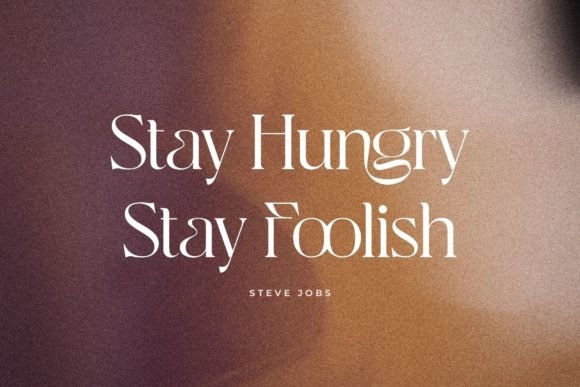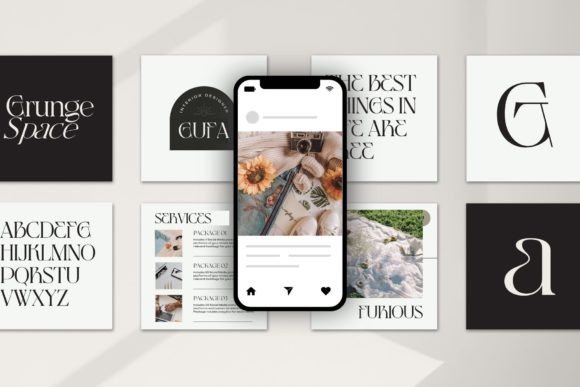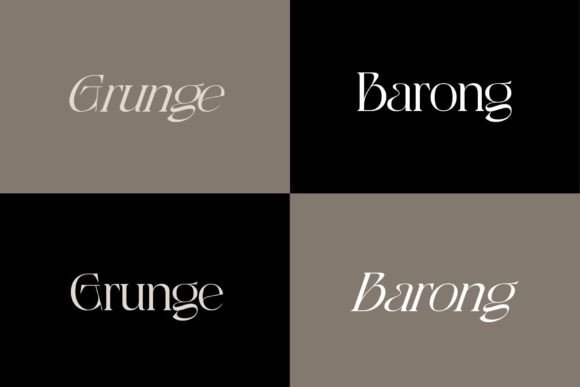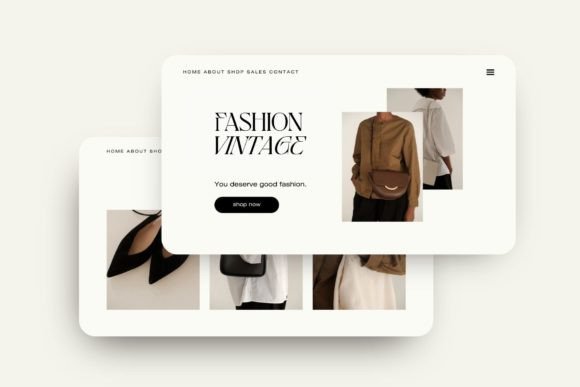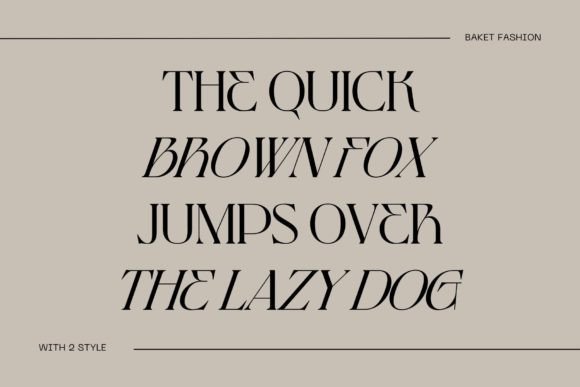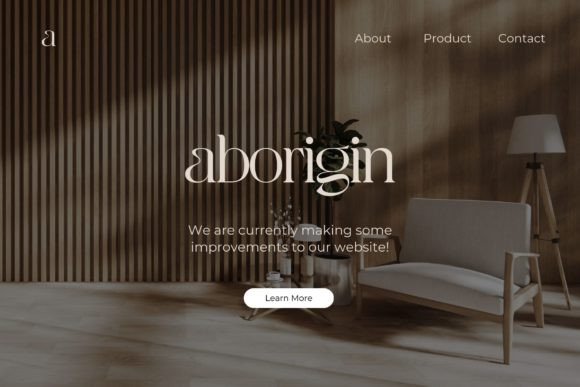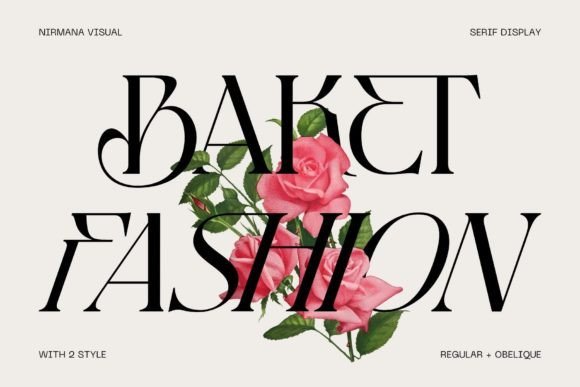
Where Elegance Meets Typography
Have you ever stared at a beautiful, hand-drawn font and wished you could capture its essence in your design? For many creatives, that ‘aha’ moment is the spark that sets their imagination ablaze. And for us, it was the inspiration behind the exquisite Baket Fashion Font.
Designed to bring sophistication and refinement to your designs, this elegant font is a masterclass in classic typography and calligraphy. With its delicate curves and balanced proportions, it’s the perfect choice for luxury branding, high-end invitations, editorial design, and formal occasions. Whether you’re a seasoned designer or just starting out, the Baket Fashion Font is an invaluable addition to your toolkit, offering a level of sophistication and elegance that’s hard to find elsewhere.
Baket Fashion Font Key Features
• Size: Supports 6 font sizes, including petite, normal, and display sizes
• Resolution: High-resolution fonts with 300 DPI or higher for crisp and clear display
• Unique Characteristics: Unique, hand-drawn design with a mix of modern and vintage elements, perfect for fashion and lifestyle brands
• Font Styles: Includes regular, bold, italic, and bold italic font styles for versatility
• Language Support: Supports a wide range of languages, including Latin, Cyrillic, and Greek alphabets
Baket Fashion Font Review
I’ve had the chance to work with the Baket Fashion Font, and here’s my honest take on it.
The Baket Fashion Font has a unique and stylish aesthetic that can add a touch of sophistication to any design project. The font is perfect for fashion and lifestyle brands, as it conveys a sense of luxury and high-end quality.
• It’s highly customizable, allowing you to adjust the font weight, size, and color to suit your design needs.
• The font has a wide range of languages supported, making it suitable for global brands.
• It’s highly legible, even at smaller font sizes, making it perfect for body text.
While the Baket Fashion Font has its strengths, there are some limitations to consider.
• The font may not be suitable for designs that require a more minimalist or modern look.
• It may be too ornate for certain design projects, such as technical or educational materials.
Overall, the Baket Fashion Font is a great choice for designers looking to add a touch of luxury and sophistication to their designs. While it may have some limitations, its unique aesthetic and high level of customization make it a valuable addition to any design toolkit.
Getting the Most Out of Baket Fashion Font
For best results, use Baket Fashion Font on bold and colorful backgrounds to make your text stand out.
Experiment with different font sizes, colors, and styles to create a unique and eye-catching design.
Baket Fashion Font is ideal for:
Designing fashion-related materials, such as fashion magazines, catalogs, and websites.
Creating eye-catching social media posts and advertisements.
Designing product labels and packaging for fashion brands.
Comparison to Baket Fashion Font: Great Vibes Font is more elegant and refined compared to Baket Fashion Font, which has a more playful and whimsical feel. Great Vibes Font is a better choice for high-end fashion brands or luxury lifestyle companies.